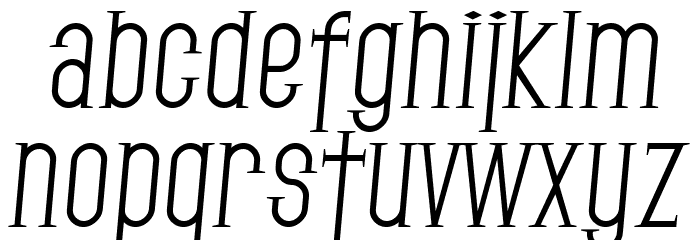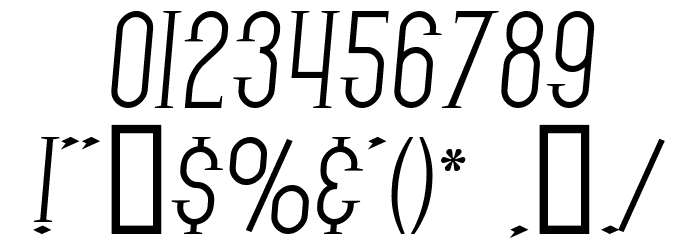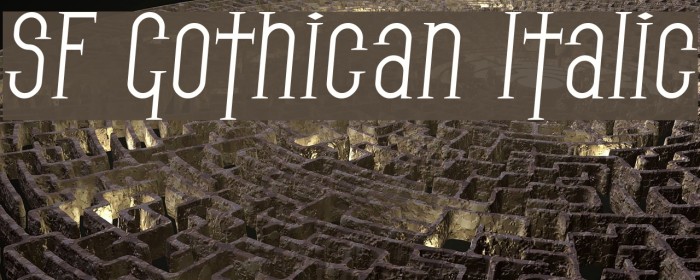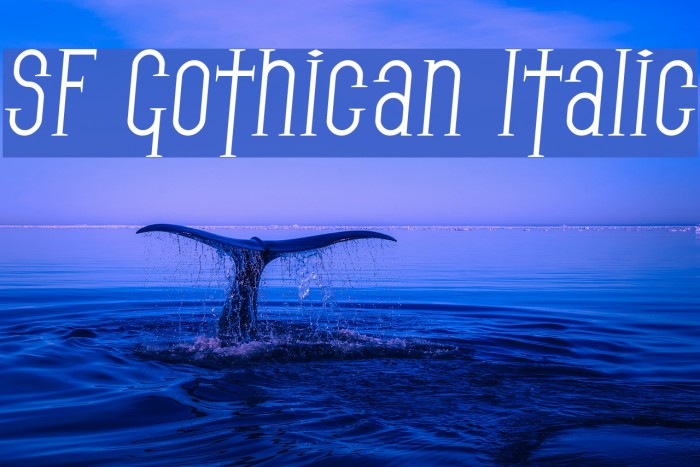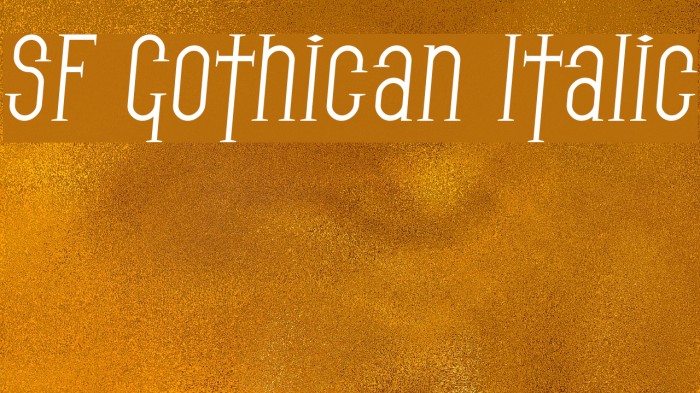
SF Gothican Italic Font
This font features a distinctive italic style with elongated and slightly condensed letterforms, giving it a sleek and modern appearance. The uppercase letters are tall and narrow, while the lowercase letters maintain a consistent height, contributing to a uniform look. The strokes are clean and sharp, with a moderate contrast between thick and thin lines. This font includes a full set of uppercase and lowercase letters, numbers, and a variety of special characters, making it versatile for various design needs. The italic slant adds a dynamic and forward-moving feel, suitable for projects that require a touch of elegance and sophistication.
A sleek, modern italic font with elongated, condensed letterforms and moderate contrast.
- Proposed Projects: Ideal for branding, editorial design, fashion magazines, and elegant invitations.
- Use Case: Headlines, Logos, Editorial design